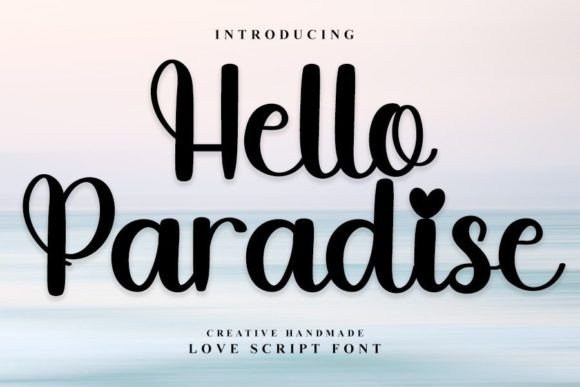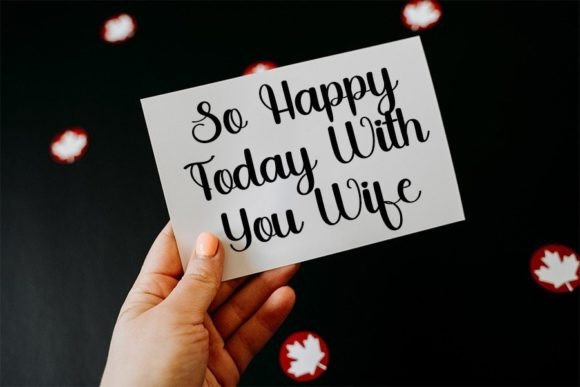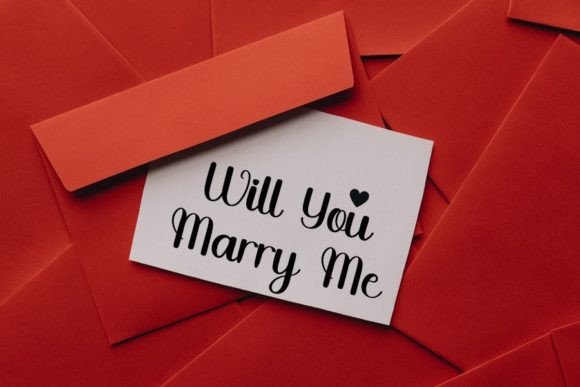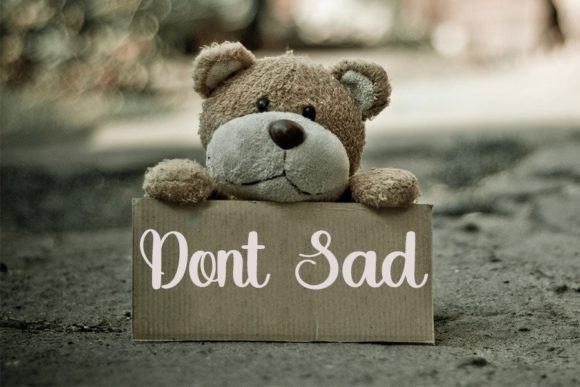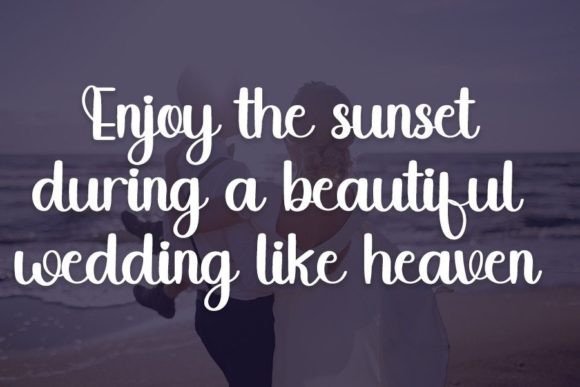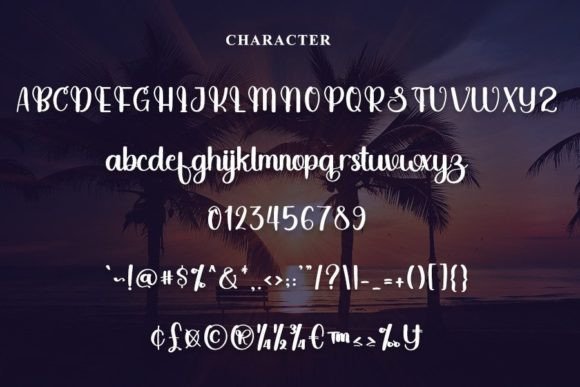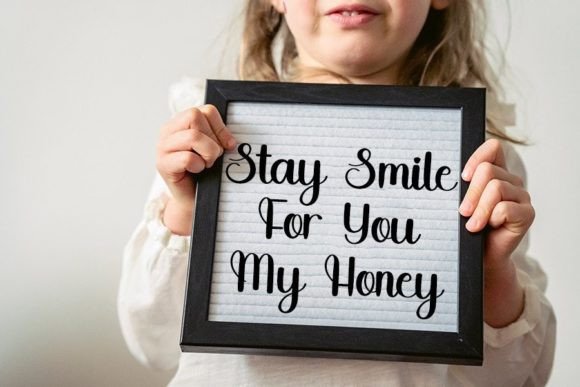
Hello Paradise Font
About Hello Paradise Font
“Hello Paradise” is a chic handwritten font exuding a contemporary atmosphere and impeccable form, drawing inspiration from the timeless allure of classic calligraphy. Characterized by a perfect balance and a diverse set of characters, this font is meticulously crafted to elevate the aesthetic appeal of your projects.
Designed with versatility in mind, “Hello Paradise” proves to be a valuable asset across a spectrum of design applications. Its stylish, handwritten flair adds a touch of sophistication, making it ideal for a range of creative endeavors. From branding to invitations, and from social media graphics to product packaging, this font seamlessly enhances the visual allure of your creations.
One of the standout features of “Hello Paradise” is its PUA encoding, granting easy access to a wealth of amazing glyphs and ligatures. This feature empowers designers, allowing them to explore and incorporate unique and artistic elements effortlessly. The font’s flexibility extends beyond its visual appeal, offering a user-friendly experience that enhances the creative process.
Embrace the charm of “Hello Paradise” as more than just a font; consider it a design companion that adds a contemporary and elegant touch to your projects. Whether you’re aiming for a casual or sophisticated vibe, this font’s adaptability ensures it can meet the diverse demands of your creative vision. Step into the welcoming world of “Hello Paradise,” where timeless calligraphy meets modern design, and let your projects flourish with its captivating style.